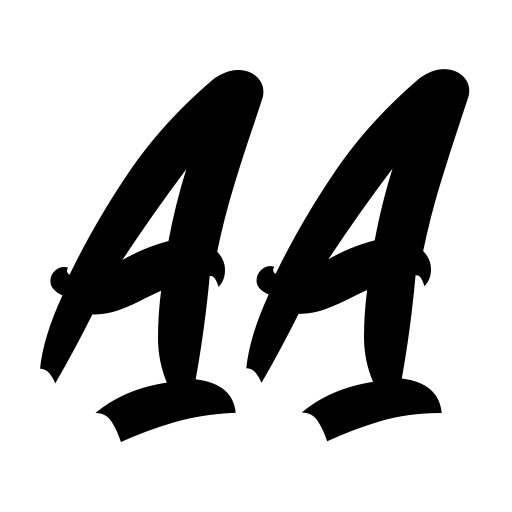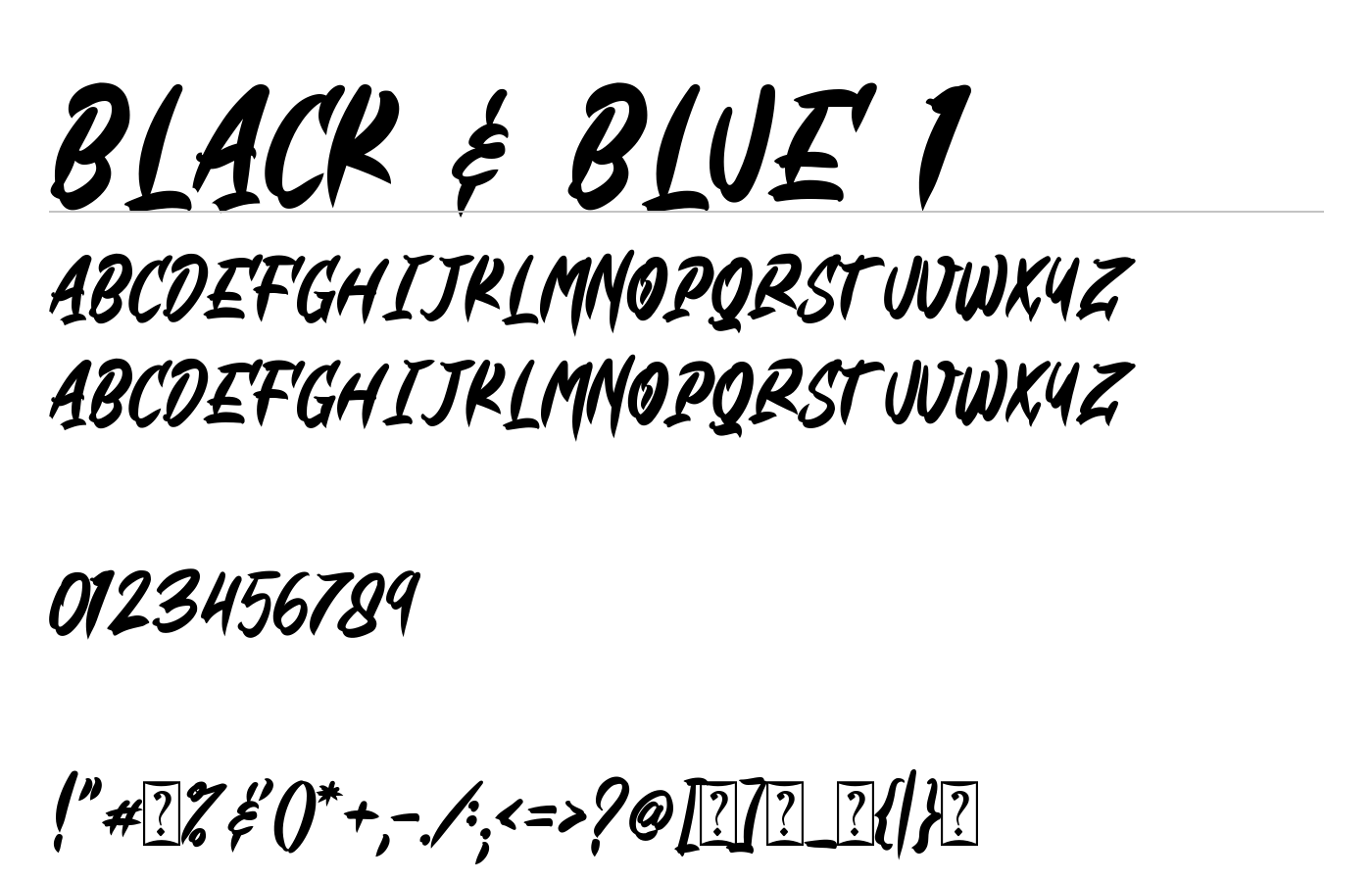
Black & Blue 1 is a bold and dynamic script font with a hand-painted, brushstroke style that exudes energy and creativity. Its sharp, irregular edges and exaggerated strokes give it an edgy, informal feel, making it perfect for eye-catching headlines, logos, and designs that want to convey a sense of artistic flair and youthful vigor. This font works well in projects needing a strong personality and a casual yet impactful presence.
Black & Blue 1 Font
About Black & Blue 1 Font
| Font family | Black & Blue 1 Font |
| Designer | Omotu Studio |